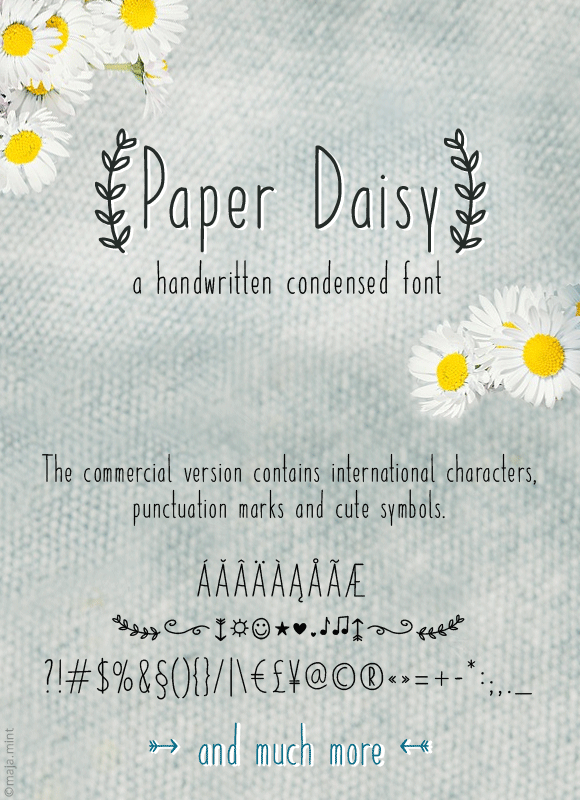
Font name: | Paper Daisy |
This is the demo version of Paper Daisy, a handwritten condensed font. It is free for PERSONAL USE ONLY! The commercial version contains international characters, punctuation marks and cute symbols. It can be purchased on CreativeMarket: https://crmrkt.com/R5rE4 If you have any questions, please contact me at info[at]majamint.com ENJOY :) https://creativemarket.com/maja.mint?u=maja.mint http://majamint.com |